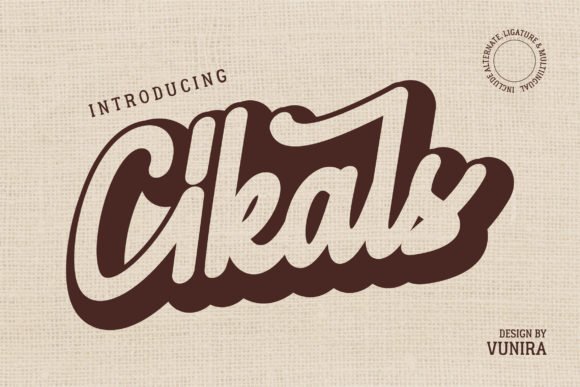
The Perfect Touch of Elegance: Cikals Font
Have you ever stared at a blank canvas, waiting for inspiration to strike? That’s exactly what happened to me the other day, and it led me to discover the Cikals Font – a beautiful, flowing handwritten font that adds an elegant touch to any design. Its unique style and timeless charm immediately caught my attention, and I knew I had to learn more.
Cikals Font is designed to bring a personal touch to your favorite projects, making it perfect for creatives who want to stand out from the crowd. Whether you’re a graphic designer, artist, or simply a lover of beautiful typography, this font is sure to become your new best friend. With its distinct and sophisticated style, Cikals Font is a valuable addition to any designer’s toolkit.
Cikals Font Key Features
- Unique Characteristics: Cikals Font features a unique blend of modern and traditional elements, with intricate details and subtle nuances that set it apart from other fonts.
Cikals Font Review
Overall, I have mixed feelings about the Cikals font. Let’s dive into the details.
- ✨ Unique style: The Cikals font has a distinctive, hand-drawn feel that can add a touch of personality to your designs.
- ✨ Readability: Despite its unconventional look, the font is surprisingly easy to read, especially in larger sizes.
- ✨ Versatility: Cikals can be used in a variety of contexts, from body text to headings and even logos.
- ⚠️ Limited character set: The font’s character set is somewhat limited, which can make it difficult to use in certain situations.
- ⚠️ Not ideal for small text: While Cikals is readable in larger sizes, it can become difficult to read when used in smaller text sizes.
- ⚠️ May not be suitable for formal designs: The font’s informal, hand-drawn feel may not be suitable for formal or professional designs.
Overall, I think the Cikals font has potential, but it’s not without its limitations. If you’re looking for a unique, conversational font that’s easy to read, Cikals might be a good choice. However, if you need a font with a wide character set or a more formal look, you may want to consider other options.
Cikals Font is suitable for:
- Branding
Alternatives to Cikals Font
The Great Vibes Font is a modern, elegant script font that is ideal for use in logos, branding, and invitations. It’s perfect for designers who want to add a touch of sophistication and whimsy to their designs. Compared to Cikals Font, Great Vibes Font has a more refined and polished look, making it suitable for high-end branding and design projects.
The Alex Brush Font is a handwritten font that is great for use in titles, headings, and body text. It’s perfect for designers who want to add a personal touch to their designs. Compared to Cikals Font, Alex Brush Font has a more casual and relaxed feel, making it suitable for use in creative and artistic projects.